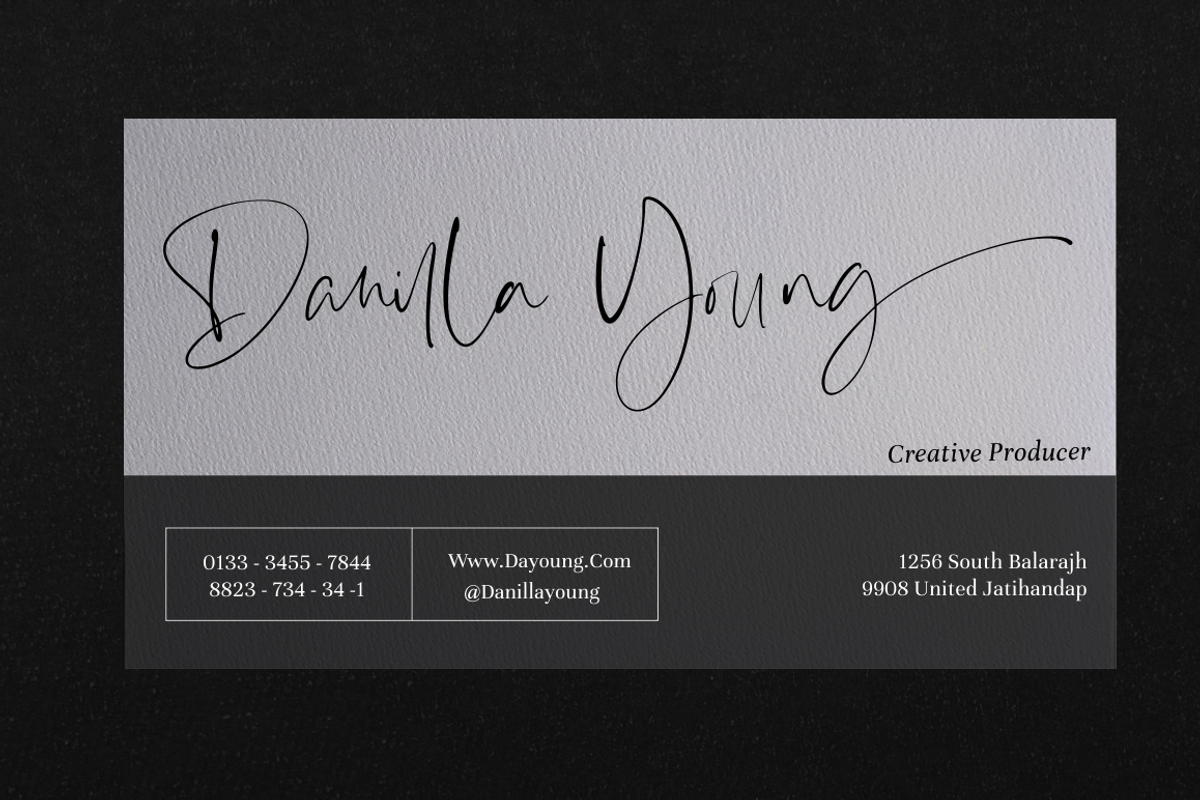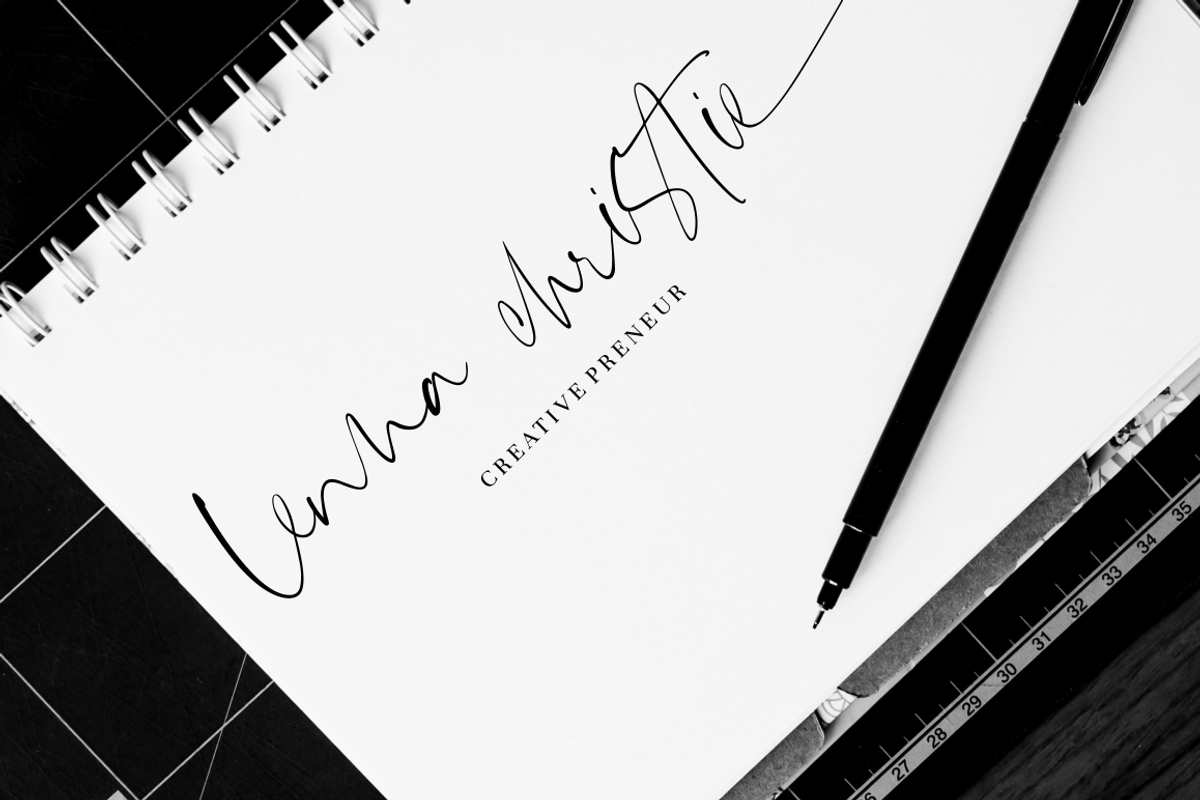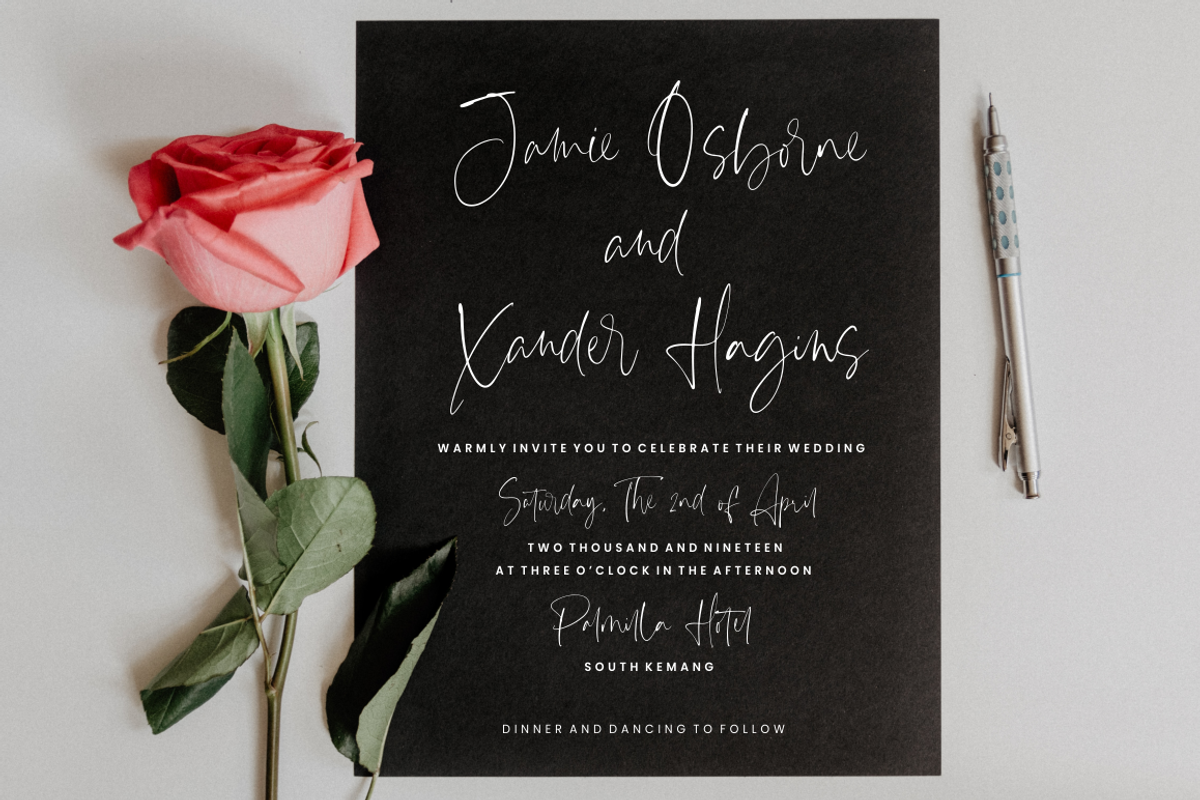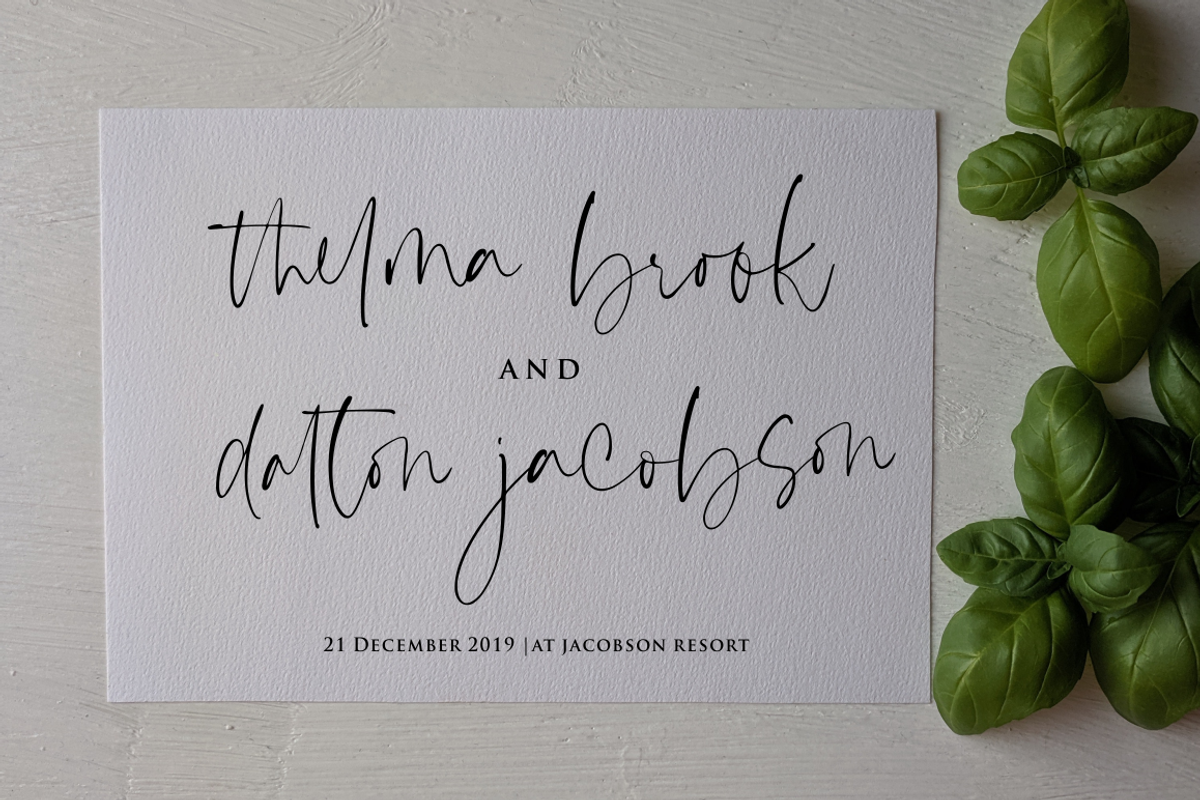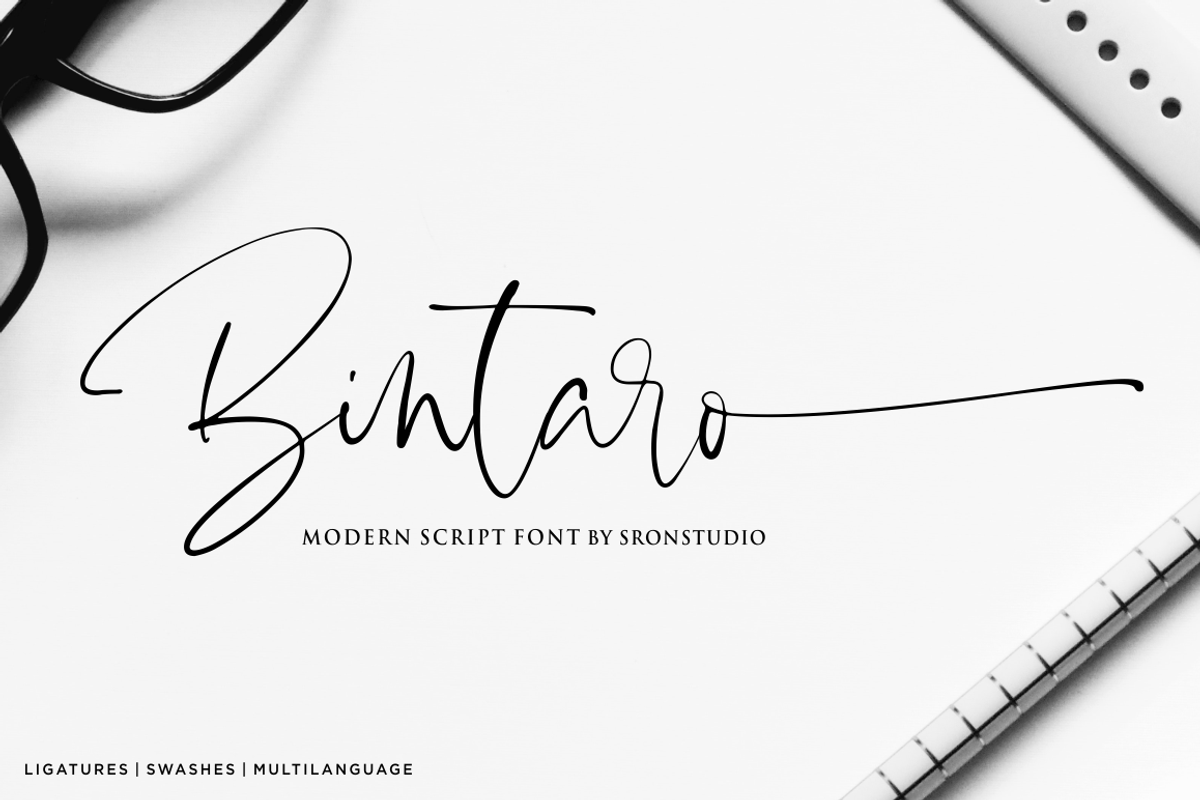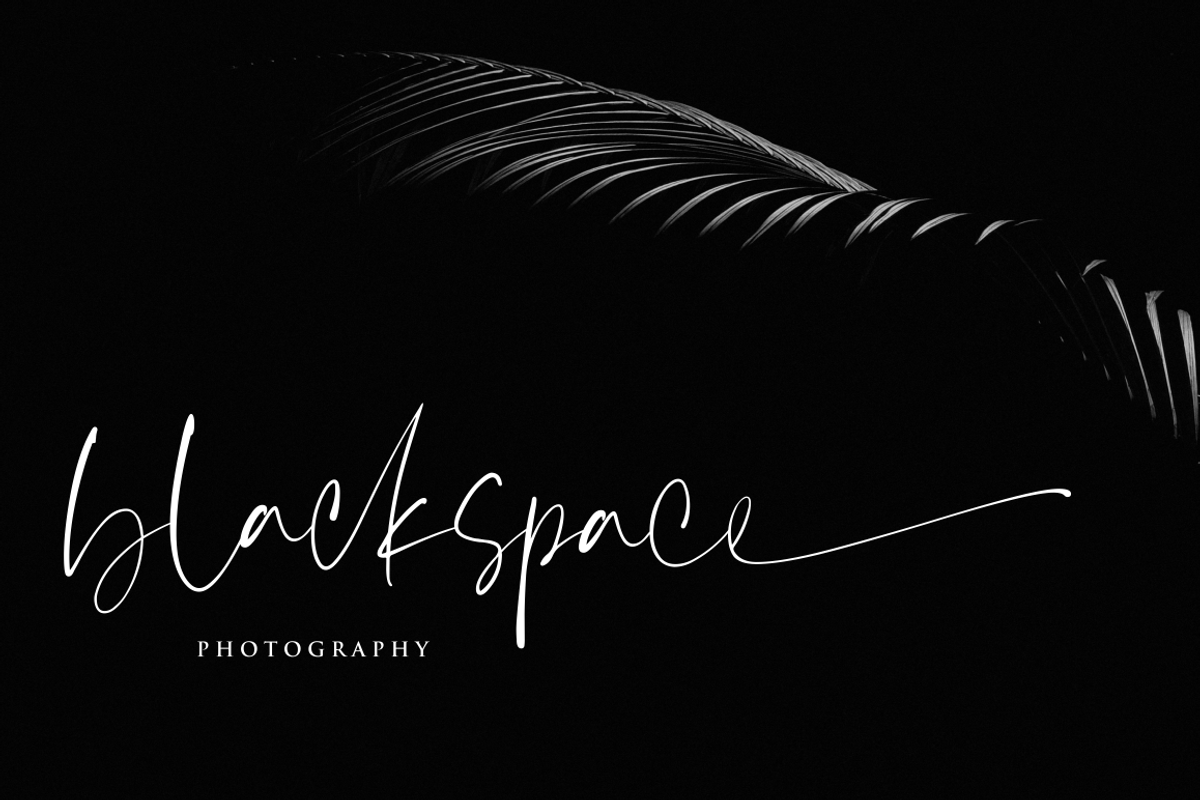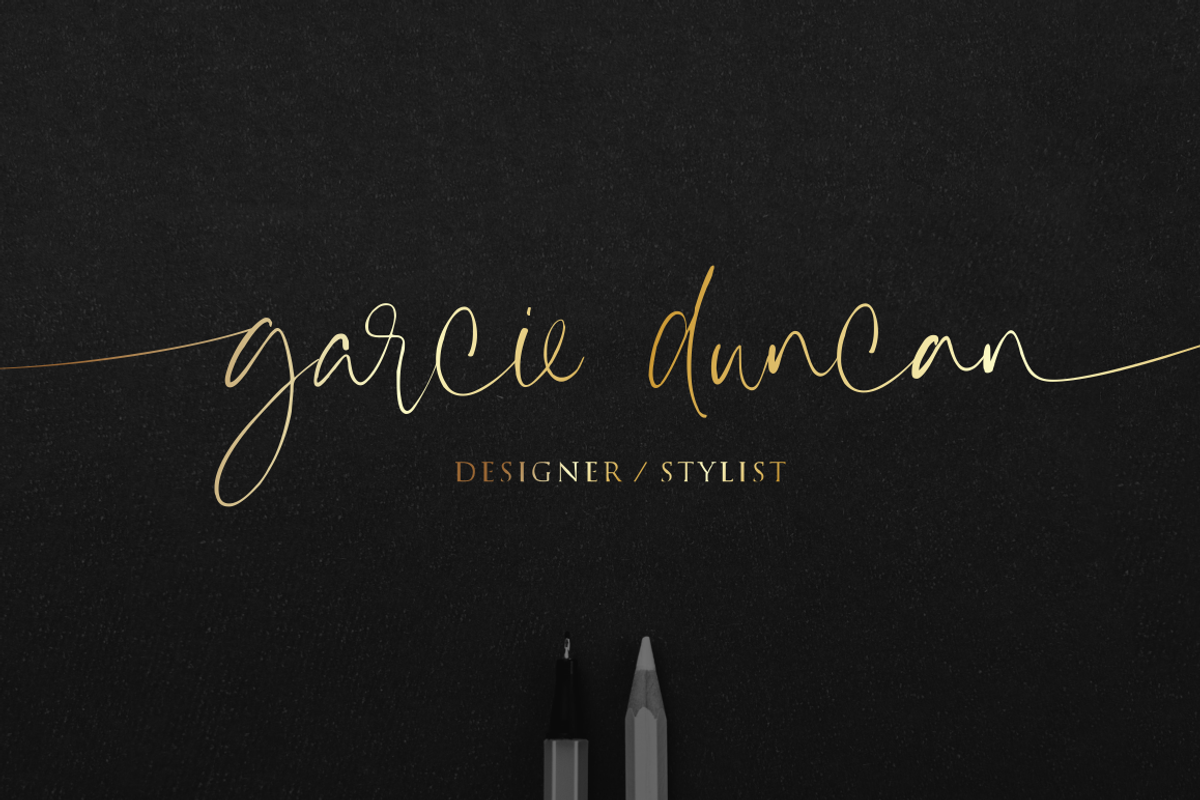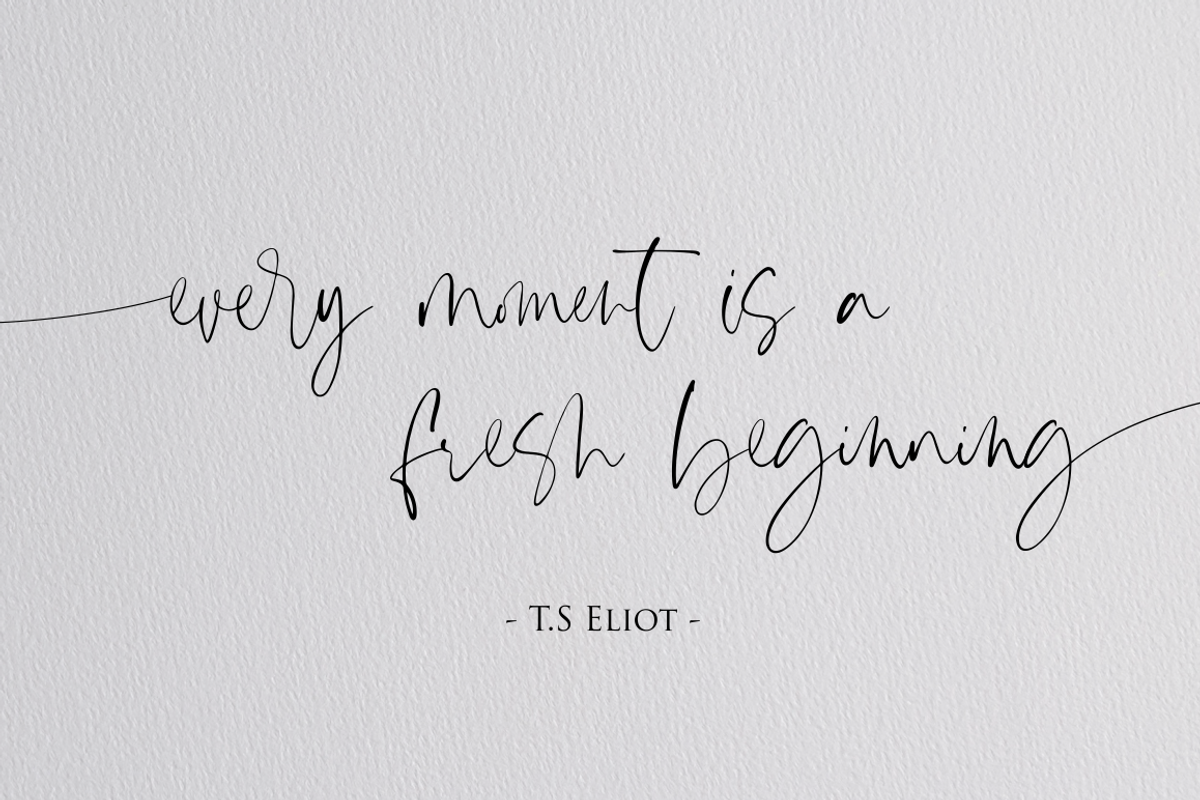
Bintaro - Modern Script Font
Introducing Bintaro - Modern Script Font
Bintaro is a beautiful signature font perfect for branding, invitation, stationery, wedding designs, social media posts, advertisements, product packaging, product designs, label, photography, watermark, special events or anything.
- Bintaro comes with full set of uppercase and lowercase letters, 54 beautiful ligatures,multilingual symbols, numerals and punctuation.